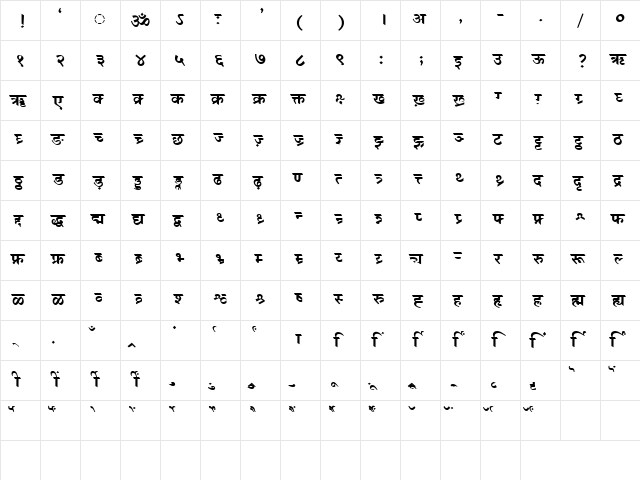
AV-Font-Hin1 Bold
Design Context for AV-Font-Hin1 Typeface
AV-Font-Hin1 offers clean, dependable letterforms without strong stylistic allegiance, making it a practical choice for designers who need flexibility. The heavy weight commands attention and anchors typographic hierarchies.